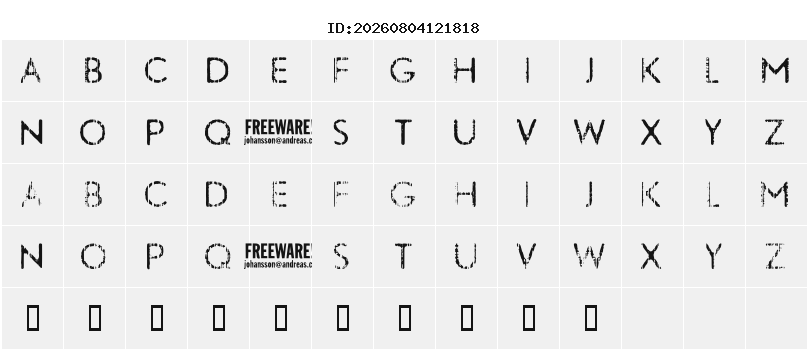
• Font Name: Nobby
• Font ID: Nobby
• Full Font Name: Nobby
• PostScript Name: Nobby
About Nobby.ttf
Nobby.ttf is a modern, elegant sans-serif font designed for ultimate readability and visual harmony. Perfect for branding, headlines, web design, and print materials.